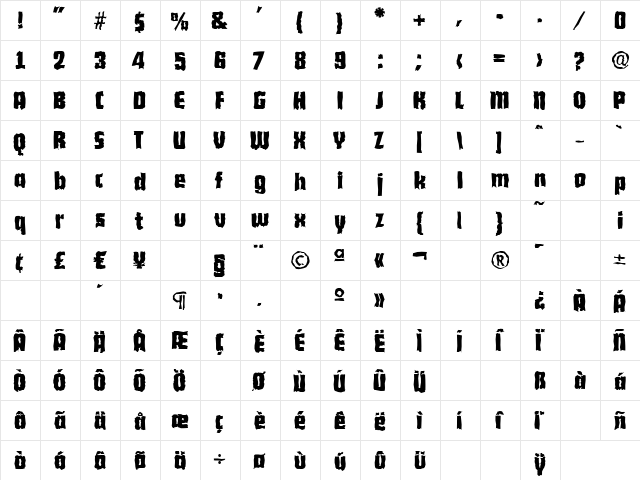
AllisonBeckerRandom Bold
Design Context for AllisonBeckerRandom Typeface
AllisonBeckerRandom is a composed and adaptable typeface that performs quietly and consistently across a wide range of design contexts. The heavy weight commands attention and anchors typographic hierarchies.